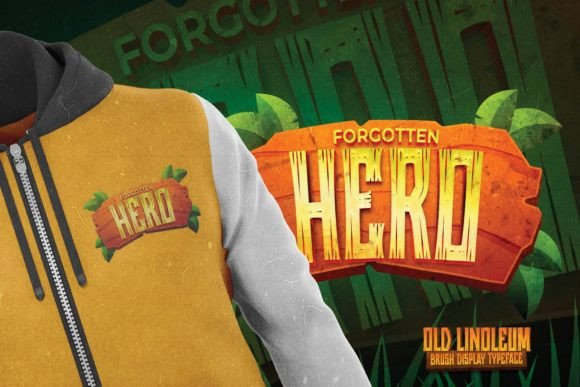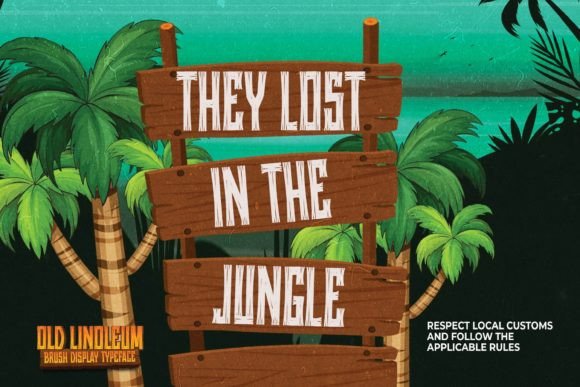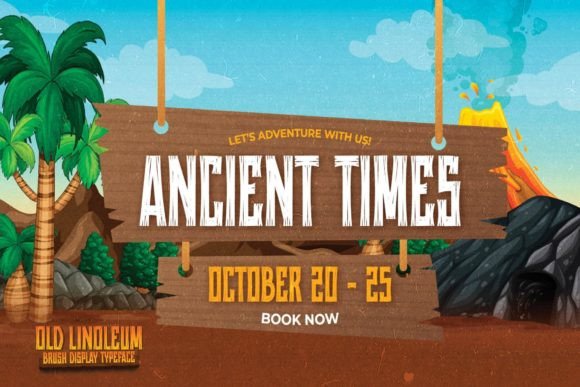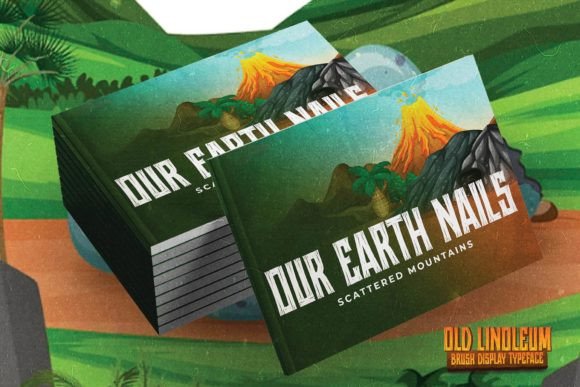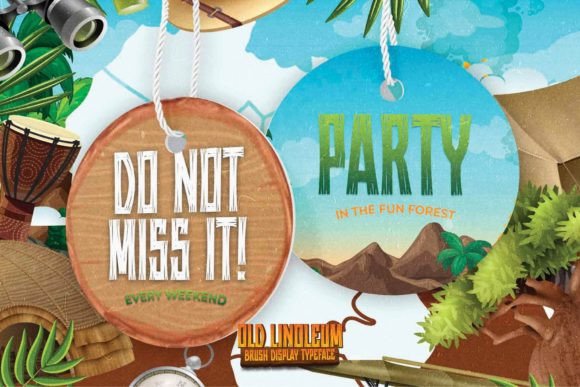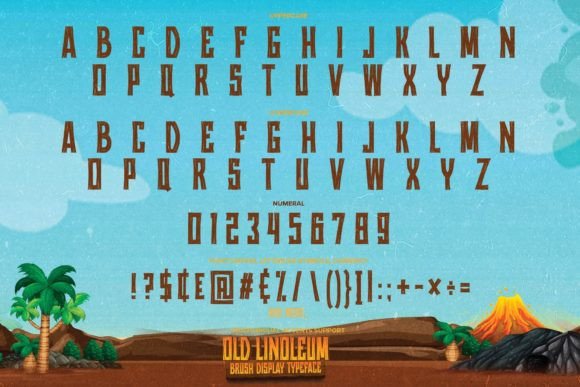
Introduction to Old Linoleum Font
Do you remember the first time you stumbled upon a beautifully crafted, vintage-inspired design that instantly caught your attention? For many of us, it’s a moment that sparks a creative idea, setting off a chain reaction of imagination and inspiration. One such design element that can evoke this feeling is the Old Linoleum Font – a stunning, handcrafted display typeface that adds a touch of natural elegance to any design project.
As a valuable resource for designers, the Old Linoleum Font offers a unique blend of high-quality, handcrafted elements that can elevate even the most mundane designs to new heights. With its transparent background and versatile design, this font is perfect for a wide range of creative projects, from invitations and book covers to logos and craft designs. And the best part? It’s available for free download, making it an indispensable design resource for designers of all levels.
Key Features of Old Linoleum Font
- High-quality, distressed texture design suitable for a creative project
- Transparent background, allowing for easy layering and composition
- Unique, vintage aesthetic, perfect for adding a nostalgic touch to your design
Honest Review: Old Linoleum Font
I recently stumbled upon the Old Linoleum Font, and I must say it’s a unique addition to any high-quality creative project. The font’s distressed, vintage aesthetic adds a touch of character that’s hard to replicate with more modern designs.
One of the standout features of the Old Linoleum Font is its transparent background, making it easy to overlay on top of other design elements without any visual clutter. This feature alone makes it a valuable design resource for any designer.
Here are some things that work well with the Old Linoleum Font:
- ✨ Unique, vintage aesthetic that adds character to any design
- ✨ Transparent background for easy overlaying
- ⚠️ Limited font weights and styles, which may limit its versatility
- ⚠️ Not ideal for projects that require a more modern, clean aesthetic
Overall, the Old Linoleum Font is a great addition to any designer’s toolkit, but it’s essential to consider its limitations when deciding whether to use it in your next project.
How to Use Old Linoleum Font
The Old Linoleum Font is a unique, high-quality design resource perfect for creative projects that require a vintage touch. With its transparent background, this font is incredibly versatile and can be used in a variety of applications.
To get the most out of the Old Linoleum Font, experiment with different font sizes, colors, and styles. You can also combine this font with other design elements to create a unique and eye-catching look.
The Old Linoleum Font is perfect for a variety of creative projects, including: